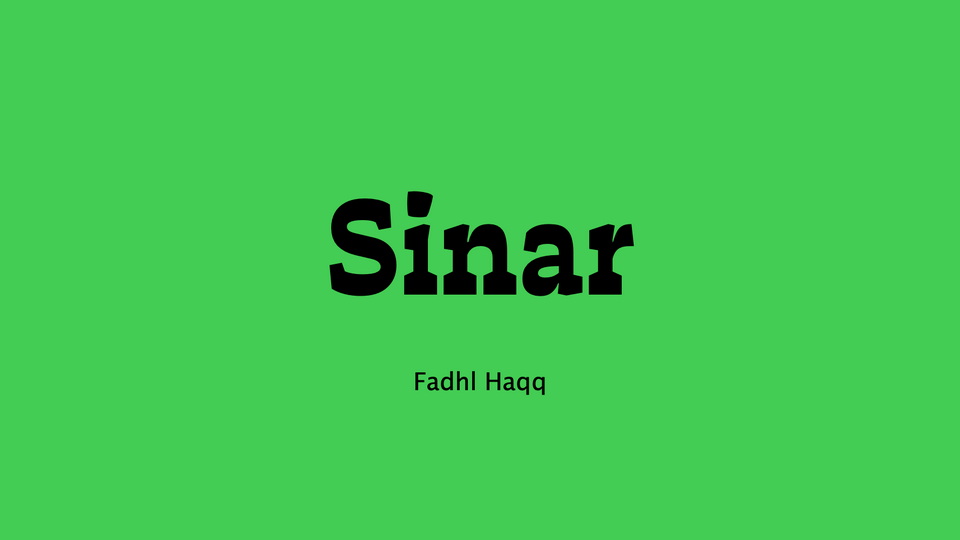
Download HD Sinar font, a reversed contrast serif typeface. The project aim is to study the reverse contrast nature and expand it to several scripts.
Designer: Fadhl Haqq